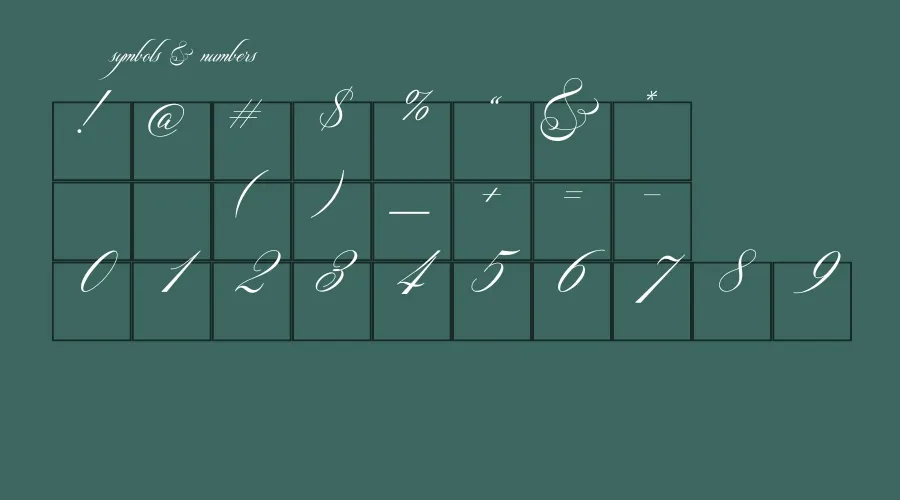
Switzerland Font
About Switzerland Font
Typeline Studio designed Switzerland Font the text style is belonging to the script family. The text style has several features that are required for any content creation. For writing banners and posters as well, this style is can be used to create stunning and readable content.
It can be used anywhere you want to create a new design. Text style has a great readable texture and a unique appearance, this typeface is gorgeous for all kinds of projects.
And it is perfect for logos, branding projects, homeware items, and all types of lovely projects that require a beautiful look. Web pages can also use this lovely text style, it can be suited for various languages.
By using this typeface, you can create attractive and impressive designs. You can get the major results by selecting this typeface. Presentations, banners, posters, and product titles, are all can be made by using this typeface.
Switzerland Font View
Style Calligraphy
Yes, the lettering style can be used for creating logos for any kind of business website. The typeface has a complete set of characters like upper- and lower-case letters and figures.